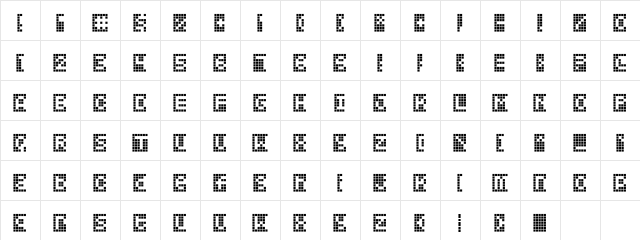
Squarodynamic 10 Regular
Design Context for Squarodynamic 10 Typeface
Squarodynamic 10 is a composed and adaptable typeface that performs quietly and consistently across a wide range of design contexts.